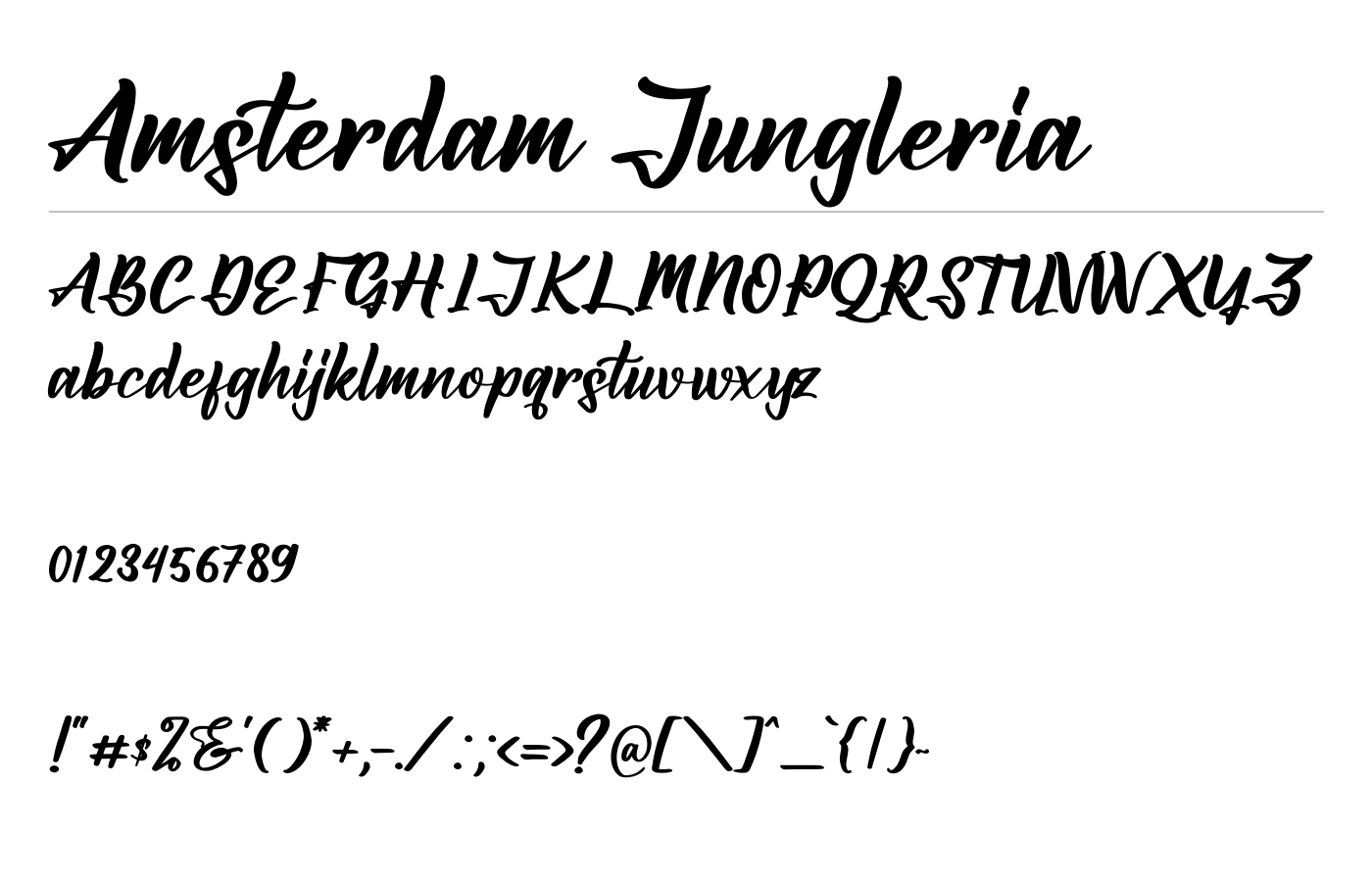
Amsterdam Jungleria is a lively script font with a handwritten touch, featuring smooth, flowing strokes and moderate contrast that gives it an inviting yet elegant feel. Its slightly italicized letterforms and playful character details make it perfect for creative projects, branding, and invitations where a warm, personal vibe is desired. This font shines in contexts that benefit from a stylish, approachable look without losing sophistication.
Amsterdam Jungleria Font
About Amsterdam Jungleria Font
| Font family | Amsterdam Jungleria Font |
| Designer | Nanang Jamaludin |